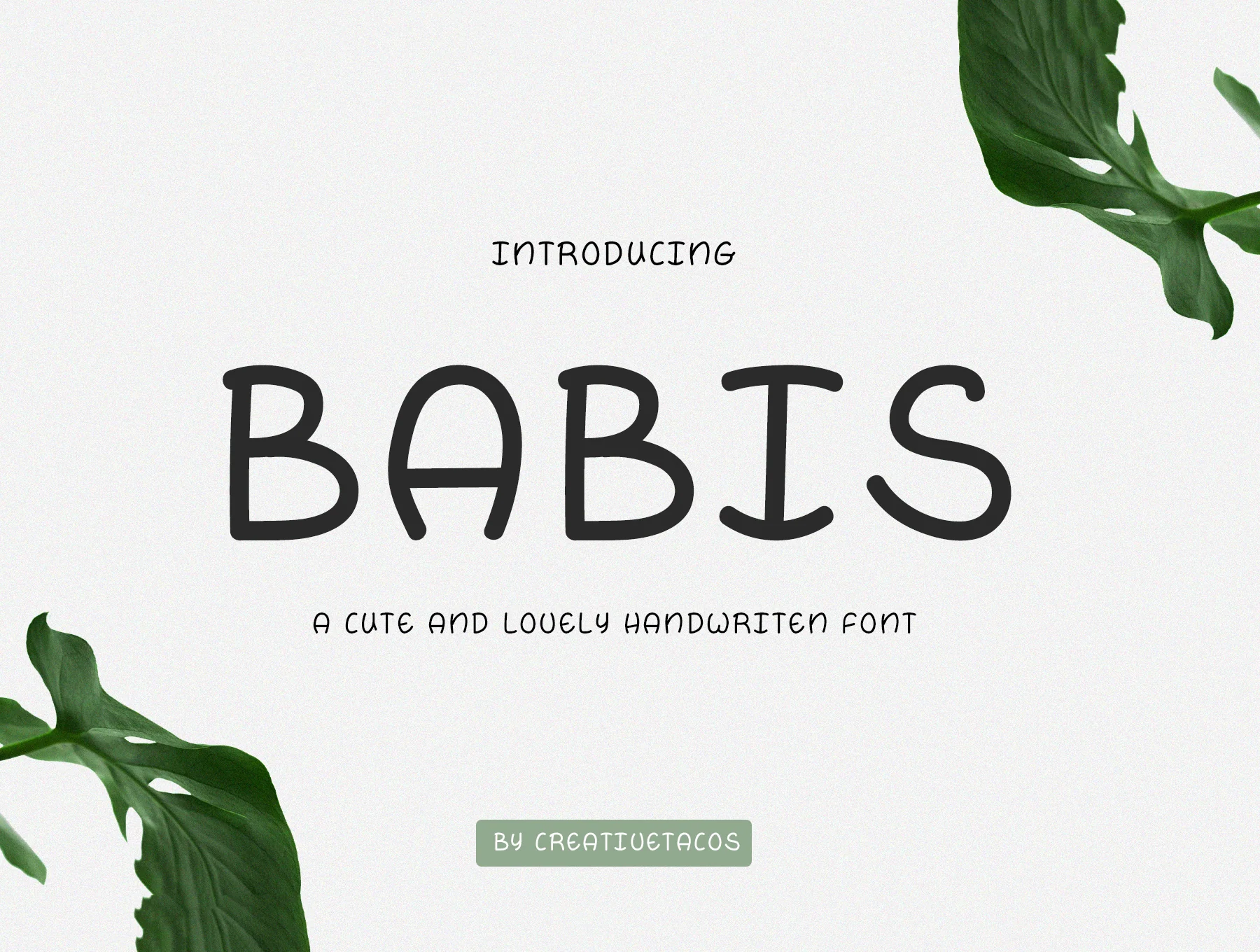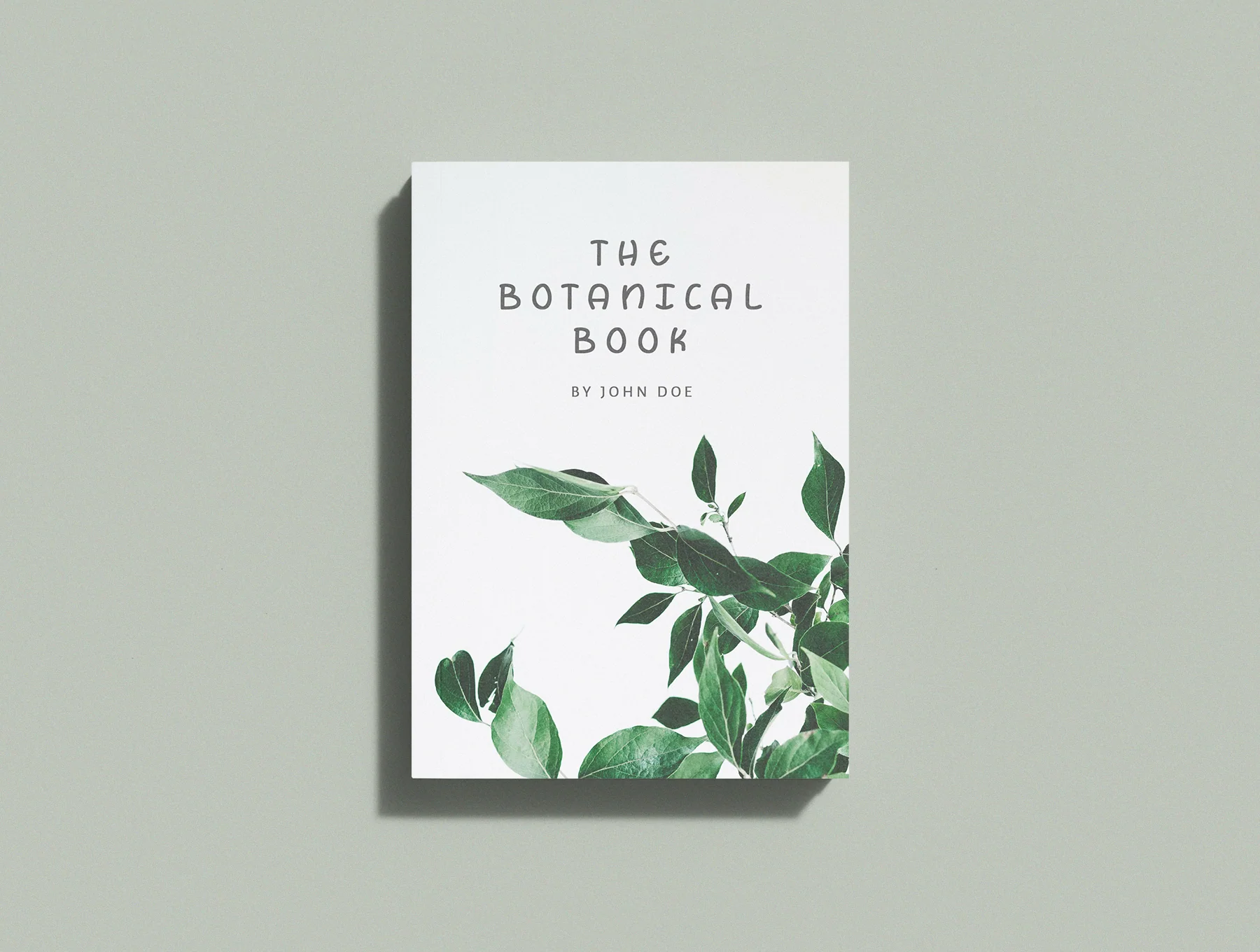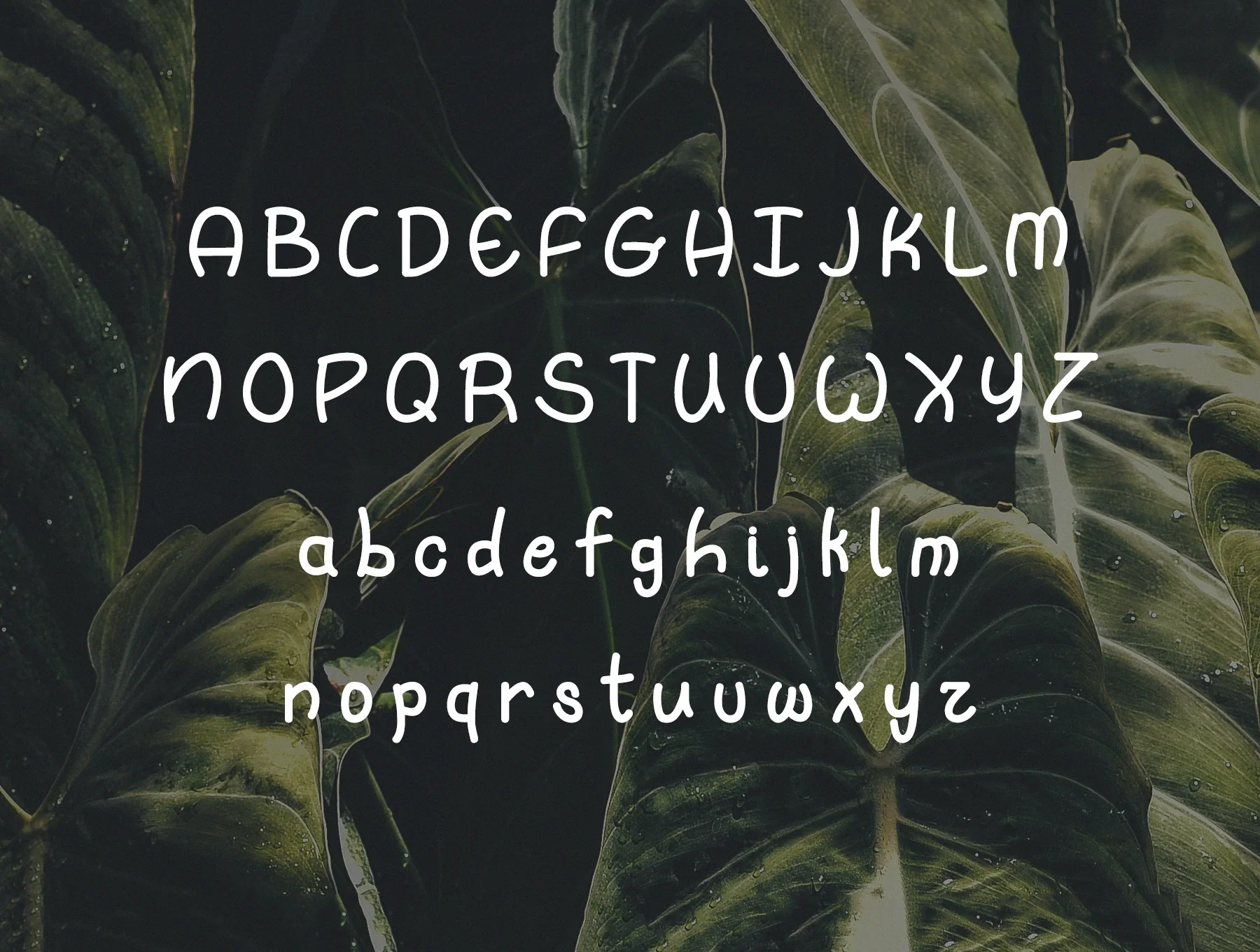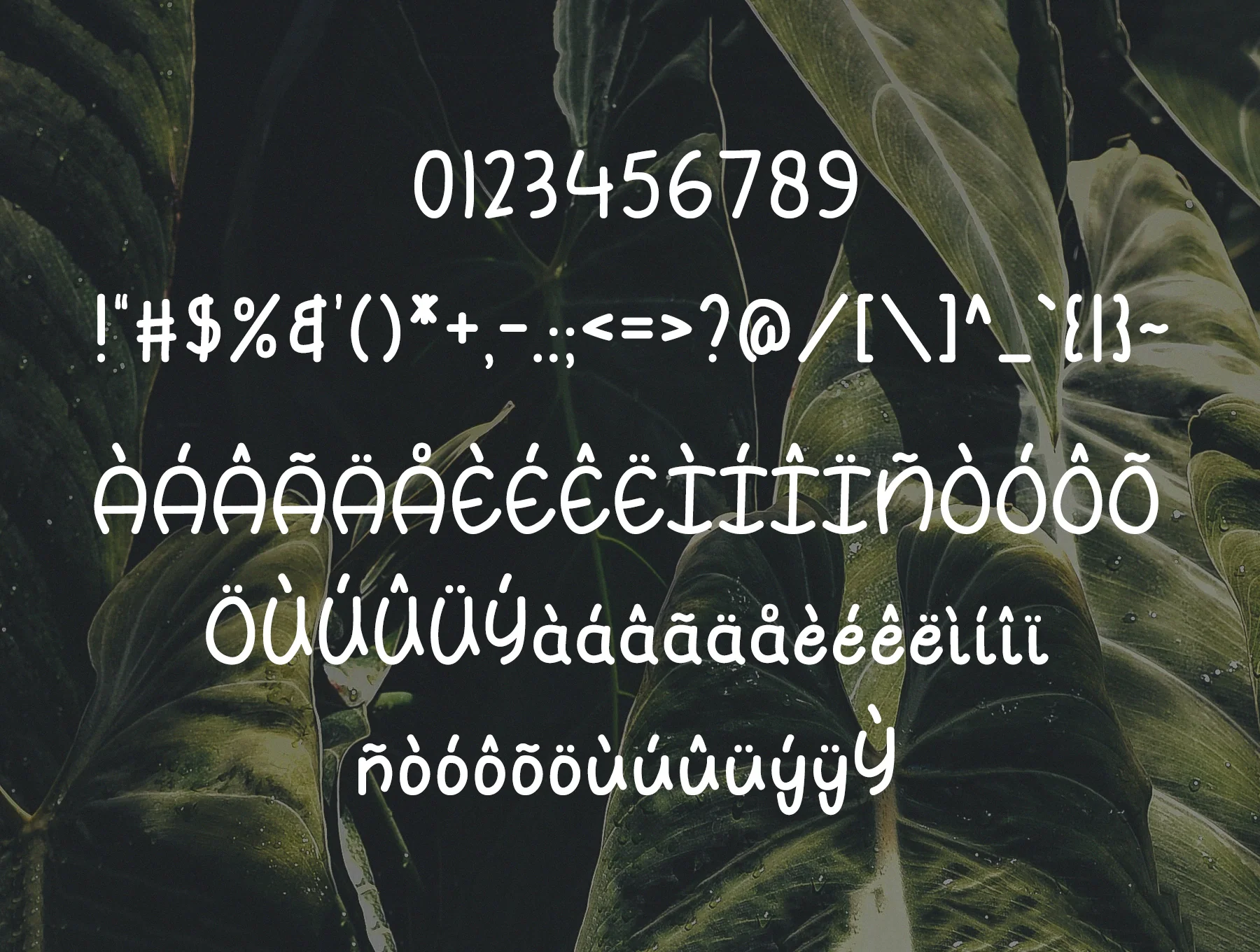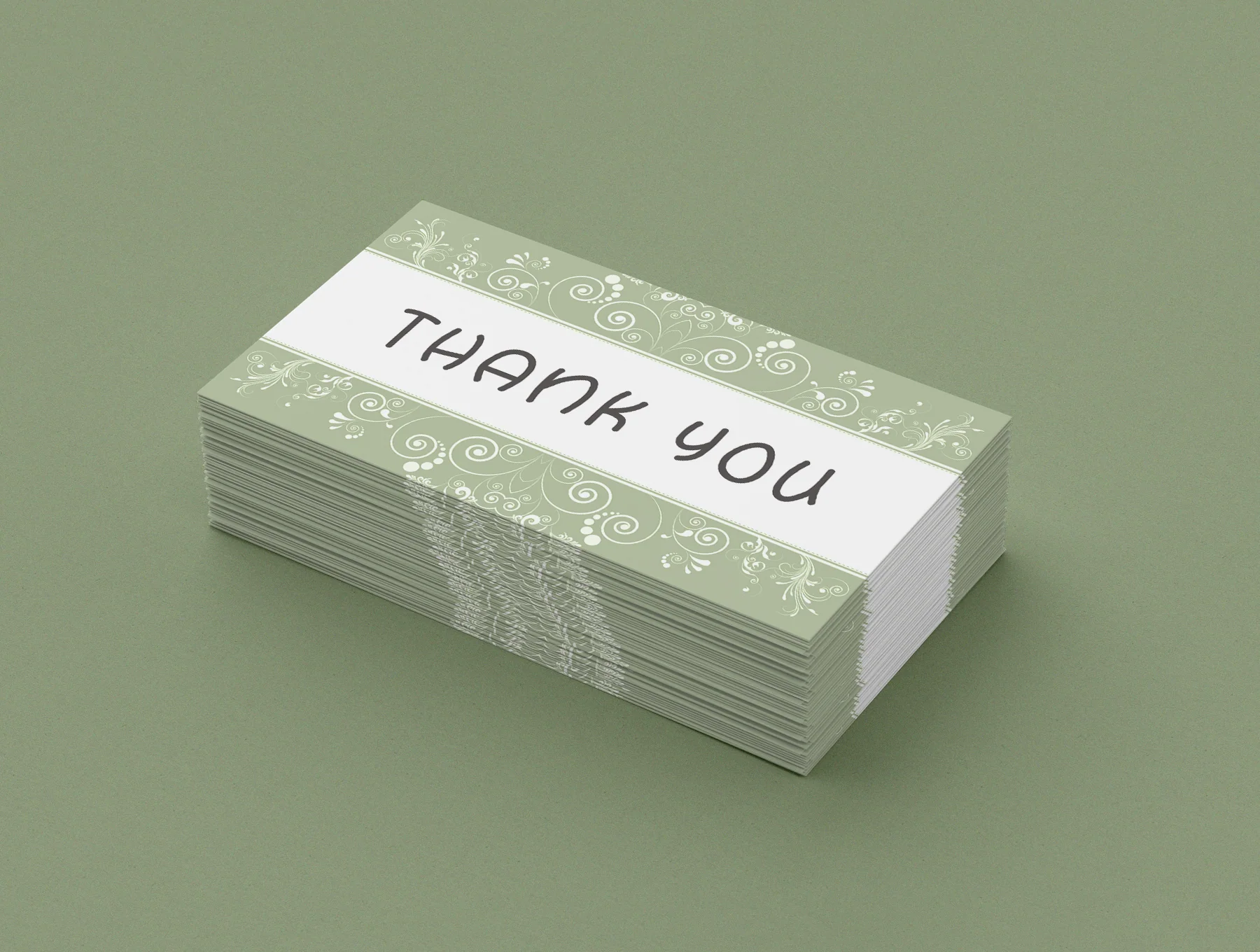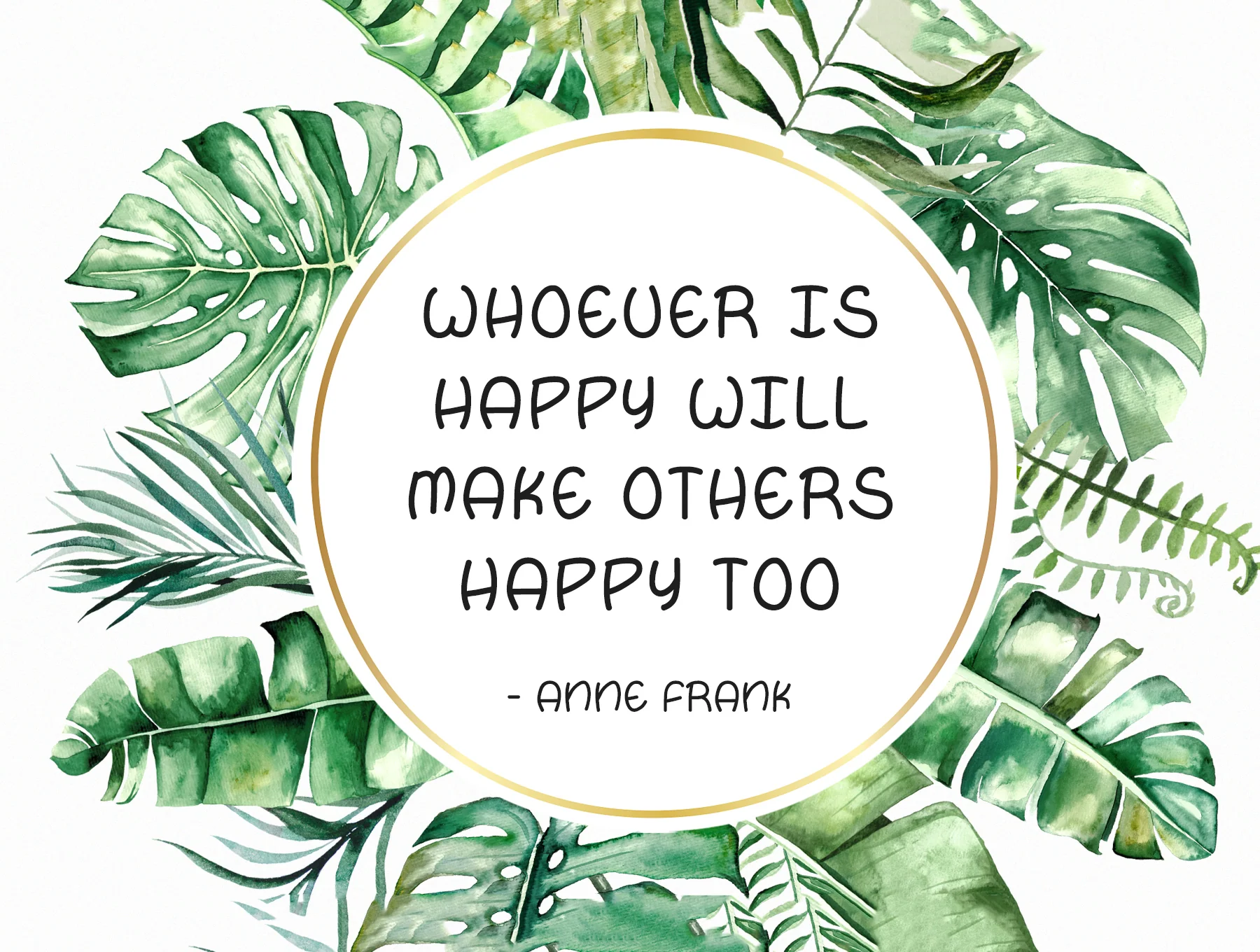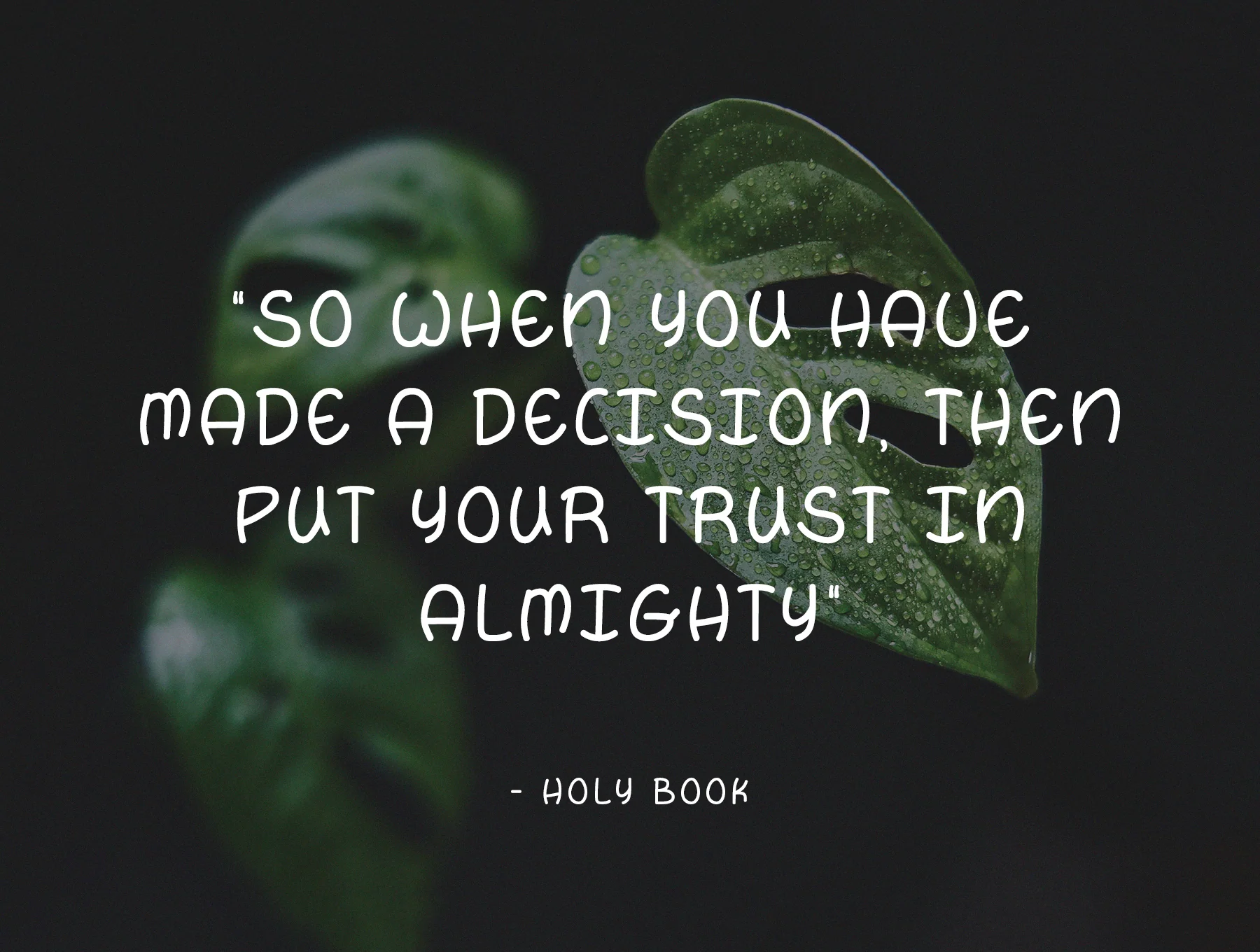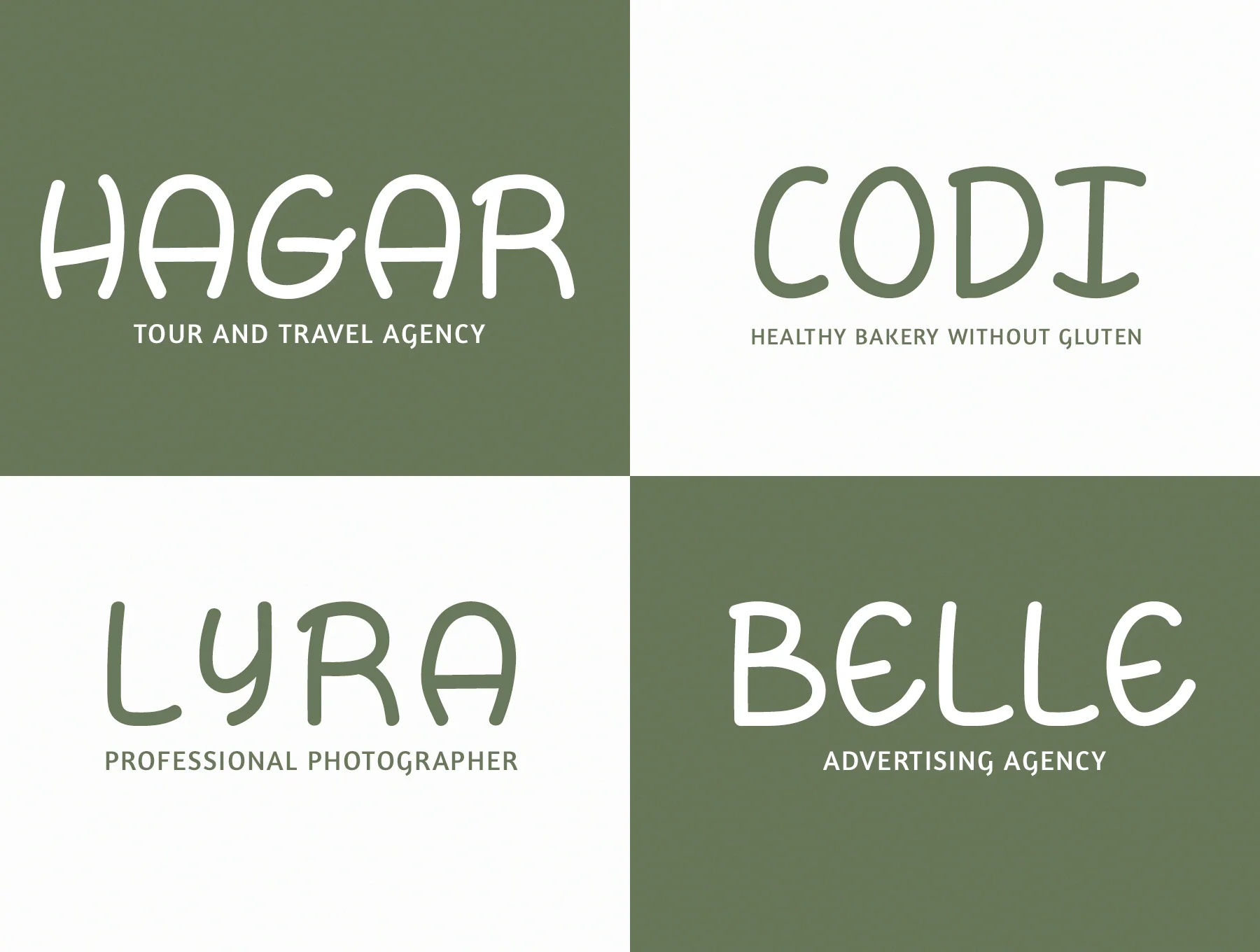
Babis Handwritten Font
Hand-drawn typeface style
Set of 148 characters
Standard weight
Babis is a graceful handwritten font with a natural, fluid handmade style that adds an artistic feel to creative projects. Ideal for logos, packaging, posters, branding, quotes, invitations, headlines, books, web designs, and more. Includes Regular weight in OTF, TTF, and web font formats, with uppercase, lowercase, numbers, punctuation, symbols, and multilingual support.